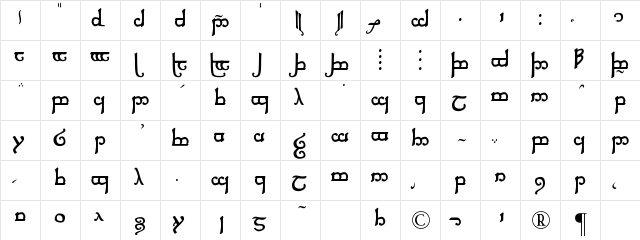
Tengwar of F?anor Regular
Design Context for Tengwar of F?anor Typeface
Tengwar of F?anor takes a measured approach to typography — its balanced proportions and neutral character make it a reliable workhorse for both digital and print work.